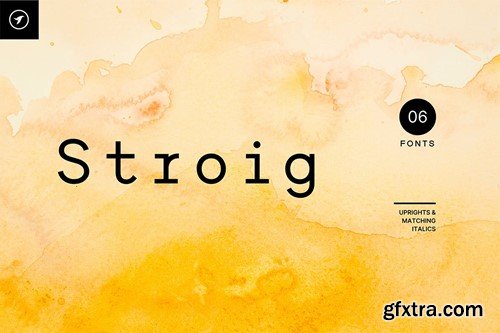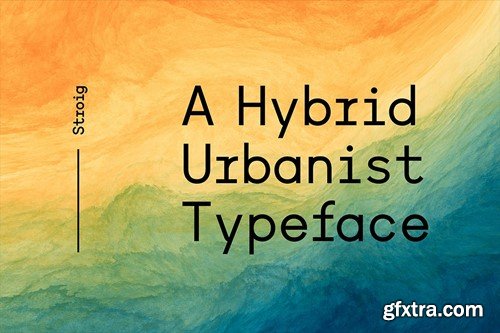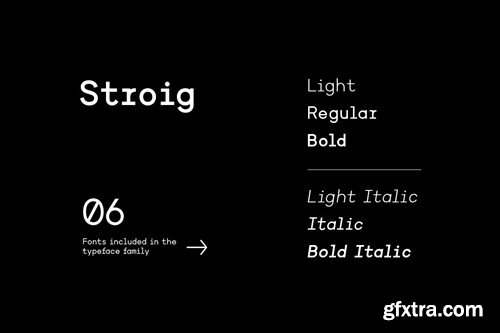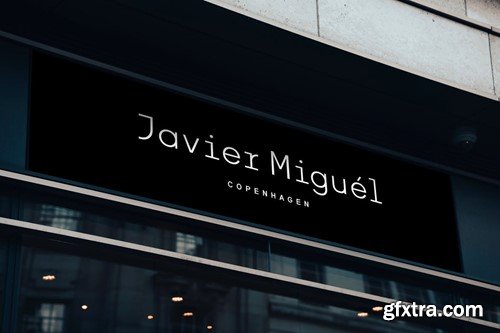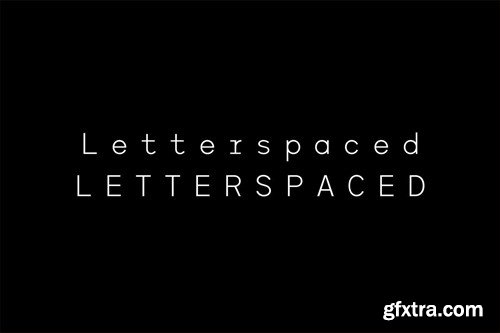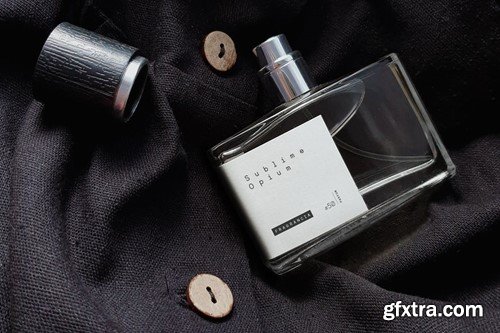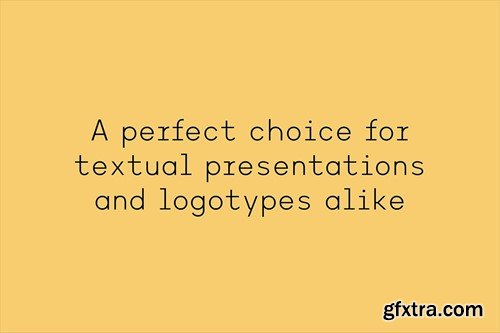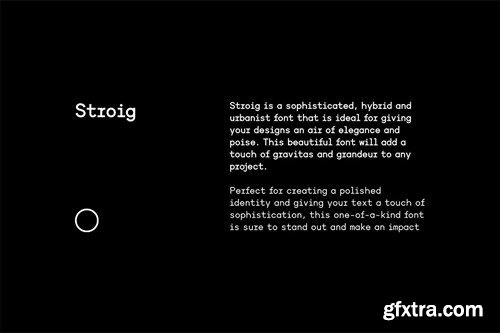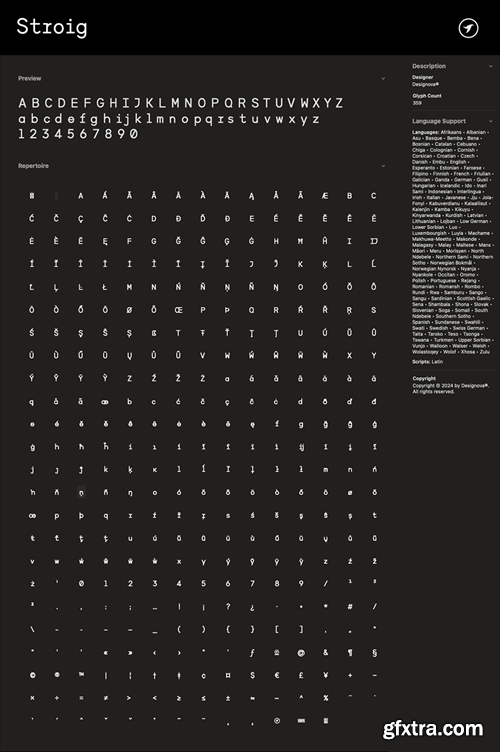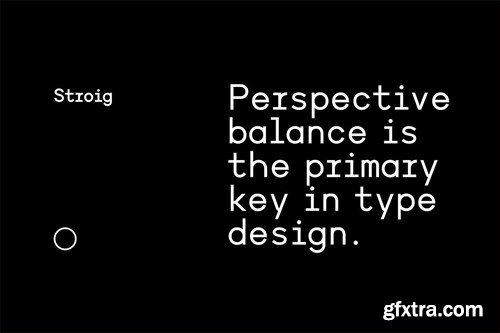
STROIG is a sophisticated, hybrid and urbanist font family that is ideal for giving your designs an air of elegance and poise. This beautiful font will add a touch of gravitas and grandeur to any project. Perfect for creating a polished identity and giving your text a touch of sophistication, this one-of-a-kind font is sure to stand out and make an impact
STROIG can be used for multi-purpose textual representations as well as branding, logotypes, and display purposes. It is especially suitable for creating exceptional logos, promotional content, and marketing graphics that can capture your visitors' attention. By adjusting the letterspacing of the font, you can have more design options for your creative projects. Take a look at the examples above to get a better idea of the potential of this typeface.
The STROIG family contains a total of 6 fonts featuring three weights (Light / Regular / Bold) with uprights and italics equivalent of each weight. Each weight includes extended language support including Western European & Central European sets. A total of 359 glyphs are included. The pack contains OTF, TTF as Desktop fonts, and optional Web Fonts (all EOT, SVG, TTF, WOFF, and WOFF2 formats included).
Total number of fonts in the family: 06 (Light, Regular, Bold, Light Italic, Bold Italic)